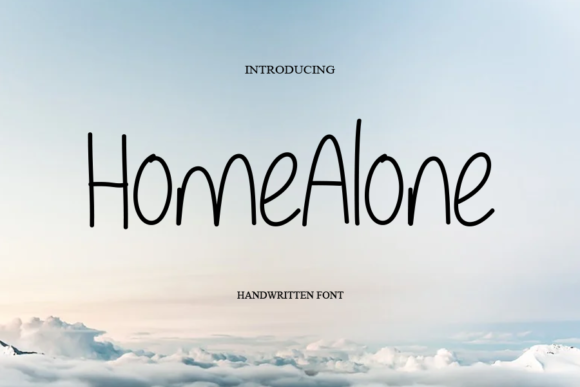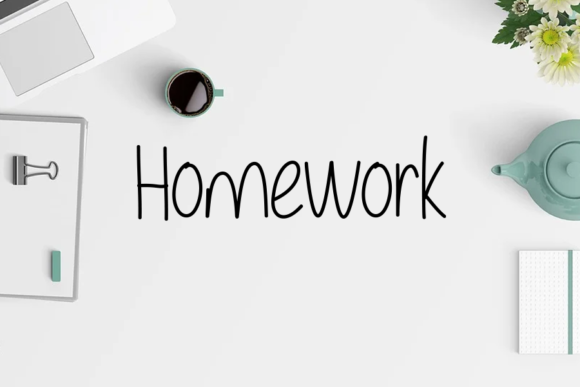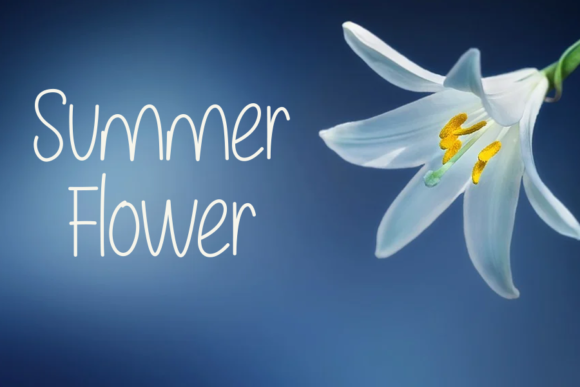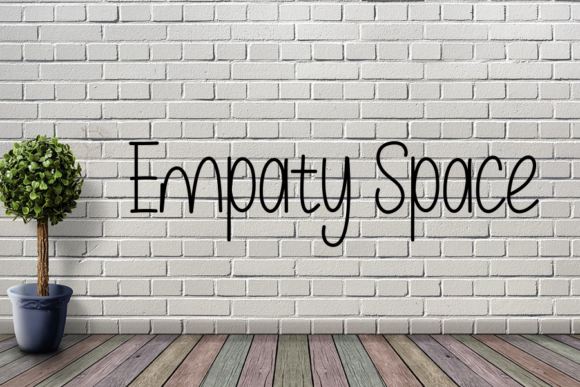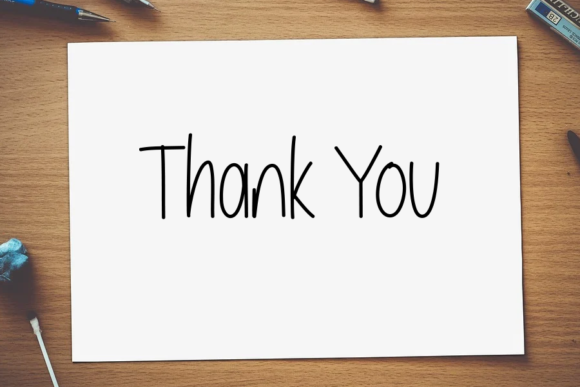
Home Alone Font
Home Alone is a beautiful handwritten font that exudes charm and playfulness. Its delightful and friendly characters make it a perfect choice for various design projects, adding a touch of personality and creativity.
With Home Alone, you can bring a warm and inviting atmosphere to your designs. It works well for a wide range of applications, including greeting cards, invitations, quotes, logos, branding materials, social media posts, and more. The font’s handwritten style adds a personal and authentic touch, making your creations feel unique and engaging.
The charming and fun vibes of Home Alone make it particularly suitable for projects aimed at children, such as book covers, posters, and educational materials. Its playful nature adds a sense of joy and whimsy, capturing the imagination of young audiences.
Home Alone is also a great choice for adding a touch of creativity to DIY projects, craft designs, and personal artwork. Its casual and hand-drawn appearance gives a handmade and artistic feel to your creations, making them stand out with a unique flair.
Whether you’re designing a logo for a cozy cafe, creating personalized stationery, or crafting a heartfelt greeting card, Home Alone can bring your ideas to life with its charming and fun-loving character.
In summary, Home Alone is a gorgeous handwritten font that adds charm, playfulness, and creativity to your designs. Its equally charming and fun vibes make it a versatile choice for a variety of projects. With Home Alone, you can infuse your creations with a sense of warmth and personal touch, captivating your audience and leaving a lasting impression.